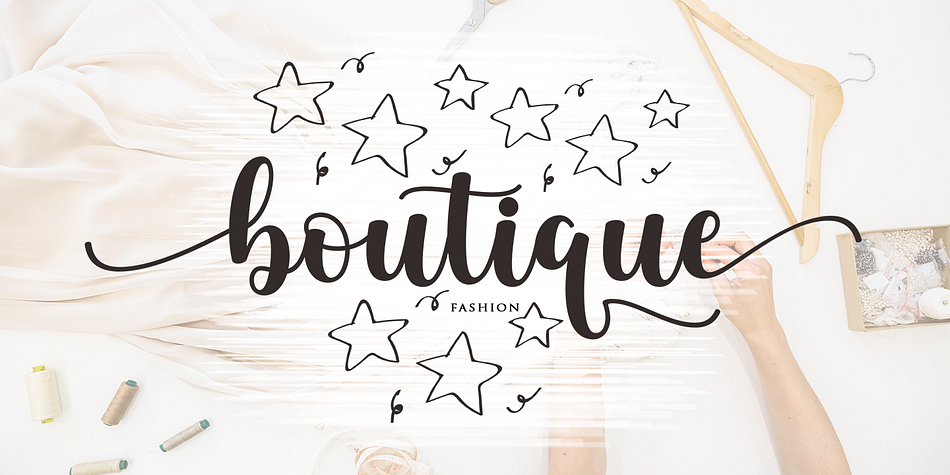
Lady July
Lady July is a modern calligraphy font family. This typeface has two styles and was published by Attract Studio.
Lady July Script is a modern calligraphy design, including Regular and Italic. This font is casual and beautiful with swash. Can be used for various purposes. such as logos, product packaging, wedding invitations, branding, headlines, signage, labels, signatures, book covers, posters, quotes, and more.